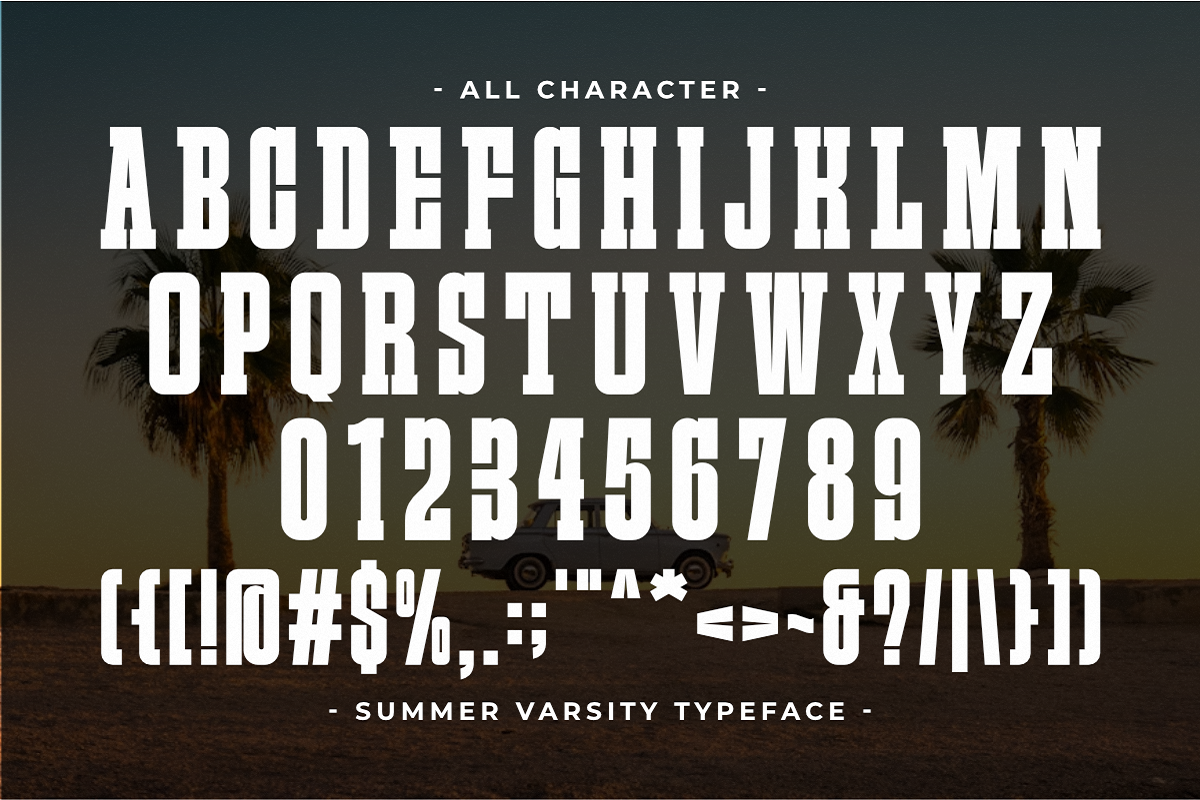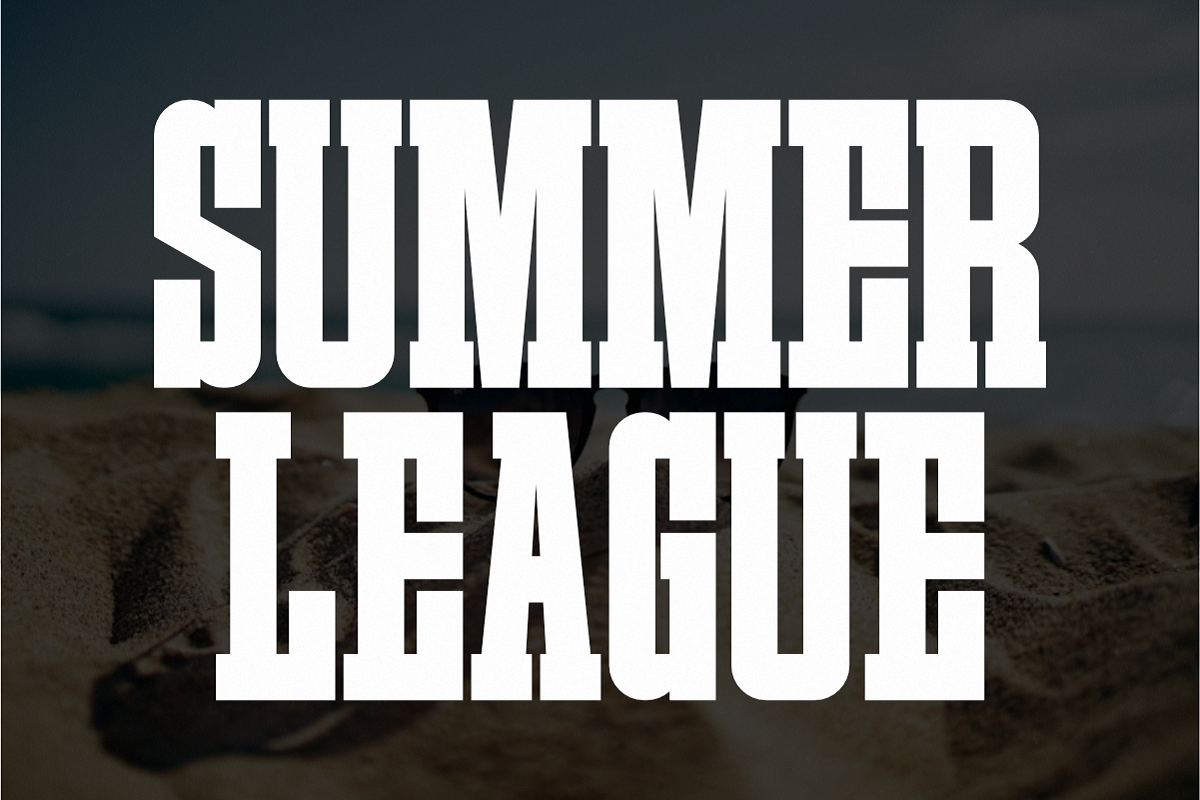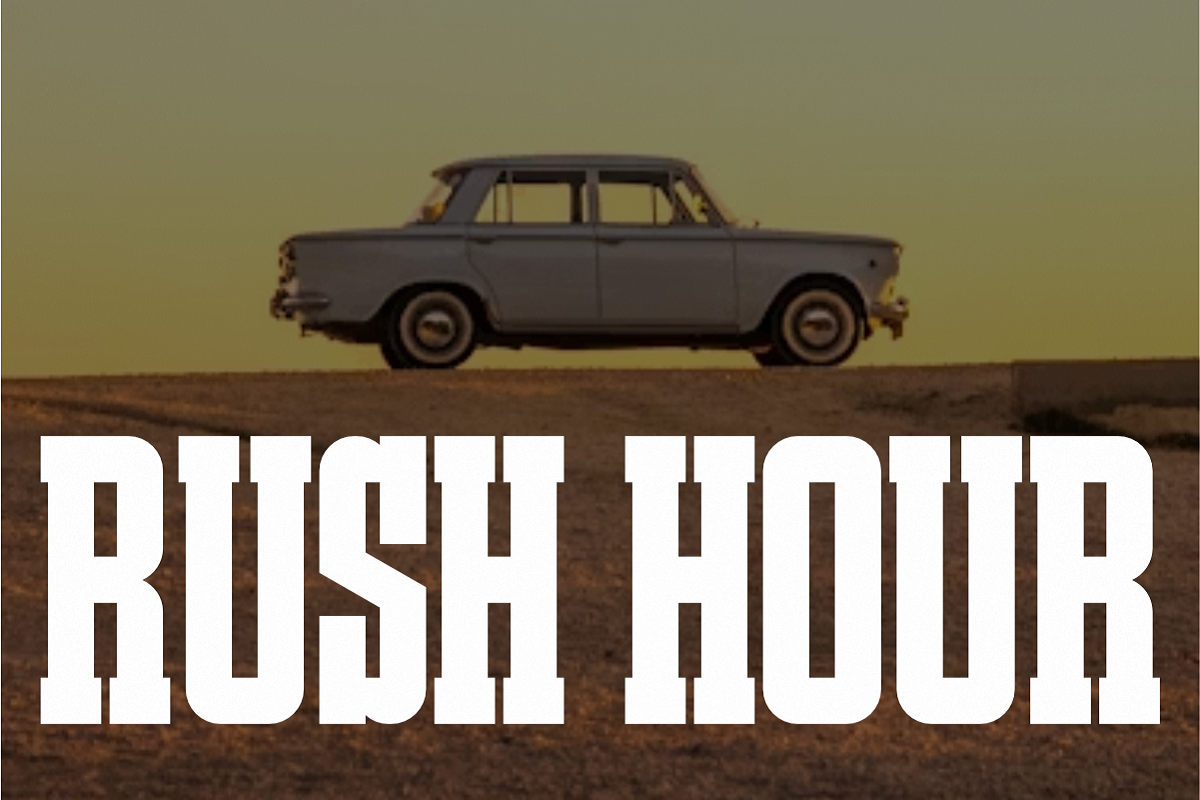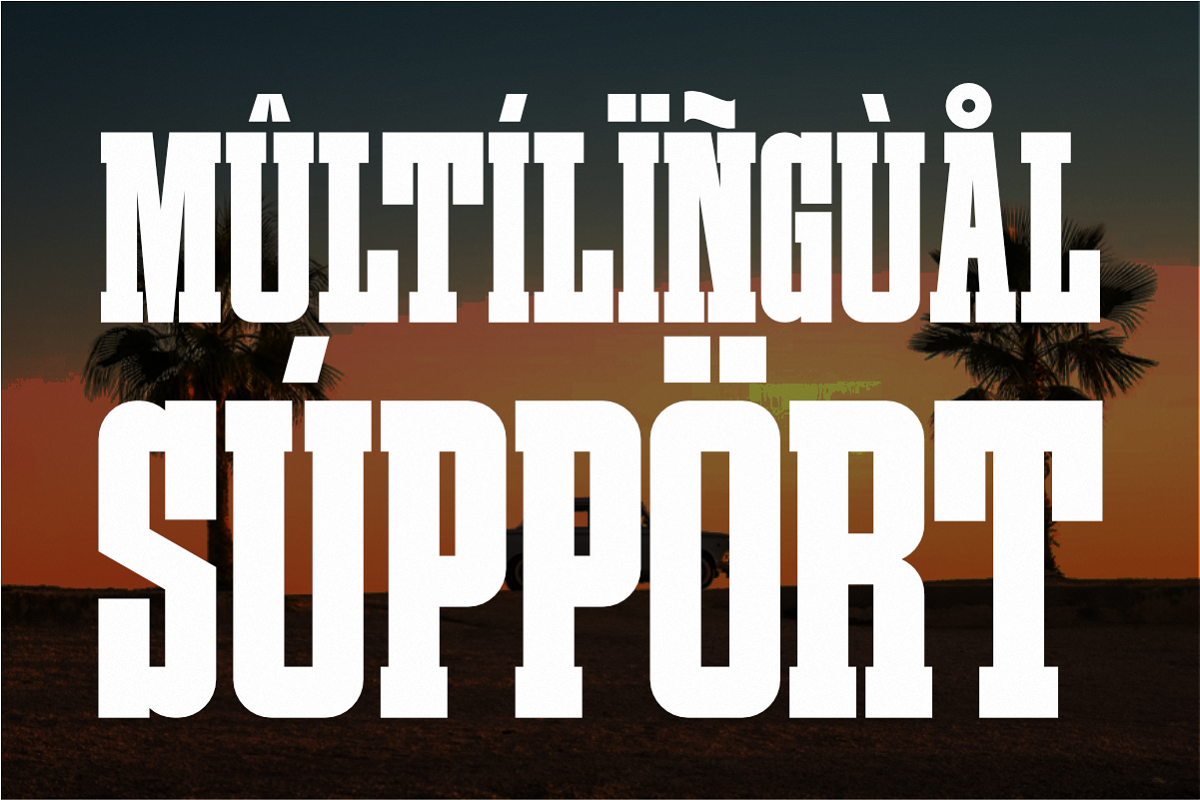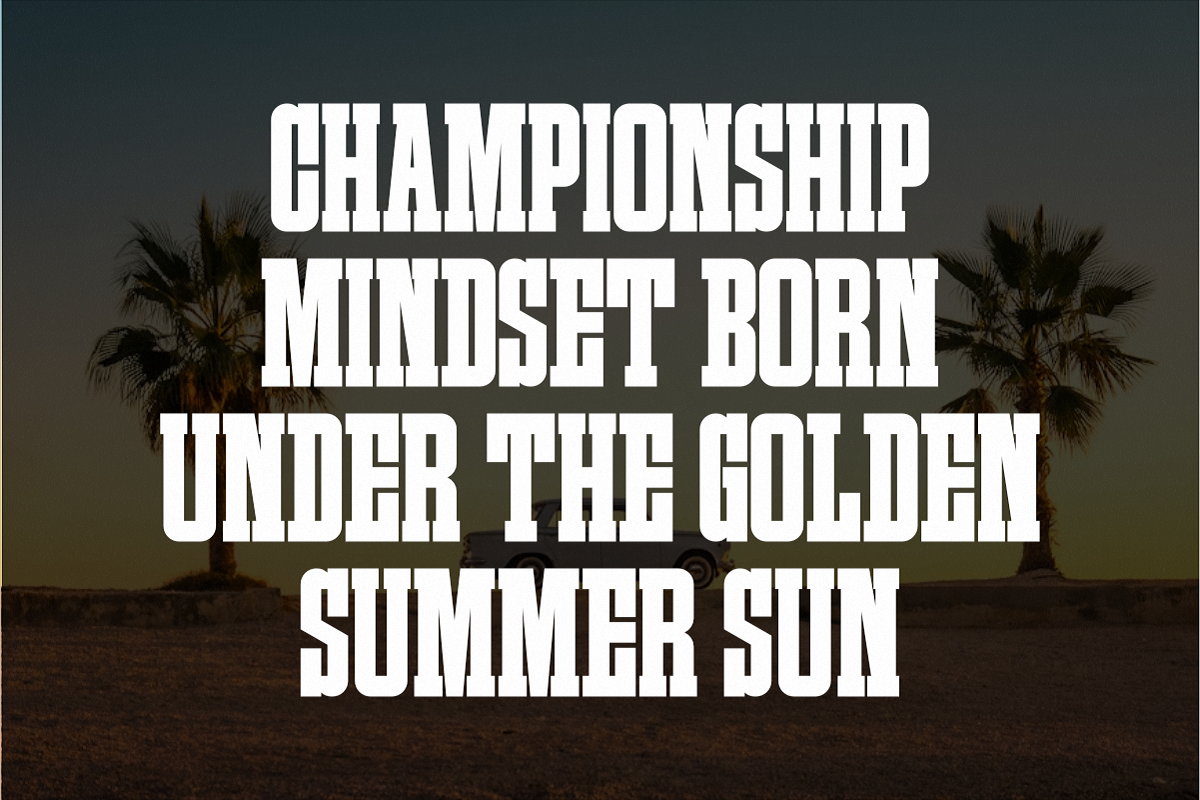
Summer Varsity - Condensed Slab
Summer Varsity is a high-impact Condensed Slab Serif font that perfectly blends athletic heritage with a sunny, tropical vibe. Featuring sharp geometric block serifs and a tall, ultra-condensed structure, this all-caps typeface is engineered for sports branding, college varsity apparel, vintage team logos, and cinematic summer headlines. Its heavy-weight presence and commanding vertical geometry ensure your message stays sharp and authoritative across custom merchandise, t-shirt designs, social media graphics, and bold event posters.